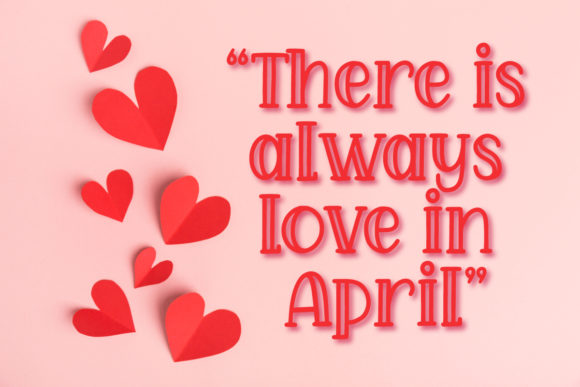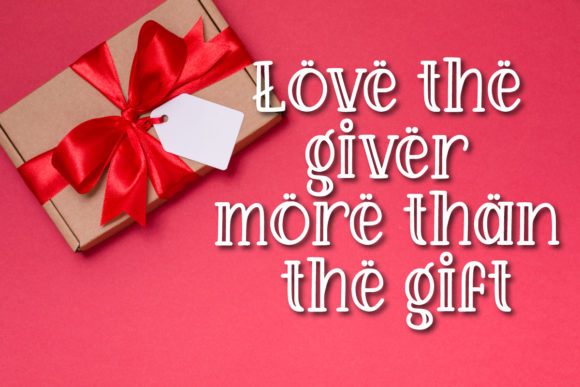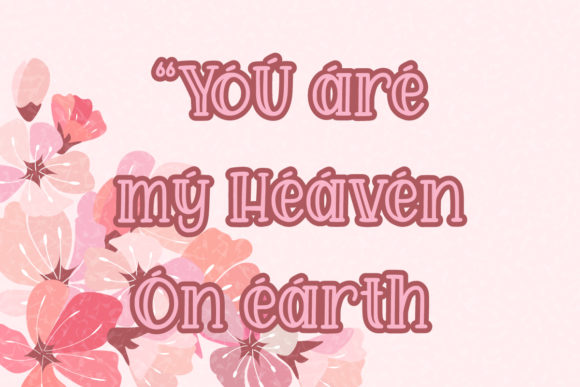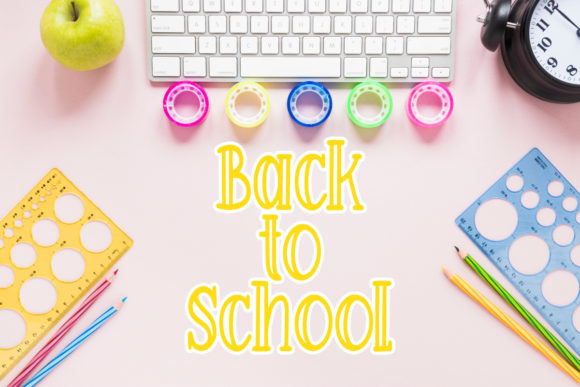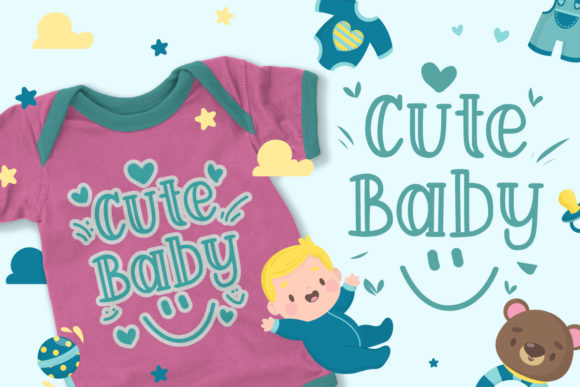
Introducing April Love Font: The Sweet and Cute Display Font for Your Creative Projects
Are you a designer, crafter, or DIY enthusiast looking for a font that can add a touch of whimsy and friendliness to your projects? Look no further than the April Love Font! This sweet and cute display font is perfect for a variety of creative applications, from logos and packaging to branding, greeting cards, and crafting projects.
What Makes April Love Font So Special?
The April Love Font features a unique and charming design that is sure to capture the hearts of your audience. Its whimsical and friendly feel makes it an ideal choice for projects that require a personal touch. Whether you’re creating a logo for a new business, designing a greeting card for a special occasion, or crafting a handmade project, this font is sure to add a touch of warmth and personality to your work.
Key Features of April Love Font
- Sweet and Cute Design: The April Love Font features a sweet and cute design that is perfect for creating visually appealing projects.
- Whimsical and Friendly Feel: The font’s whimsical and friendly feel makes it an ideal choice for projects that require a personal touch.
- Versatile: The April Love Font is versatile and can be used for a variety of creative applications, including logos, packaging, branding, greeting cards, and crafting projects.
The April Love Font is perfect for designers and crafters who are looking for a unique and charming font to add to their projects. Whether you’re creating a professional logo or a handmade crafting project, this font is sure to add a touch of personality and whimsy to your work.
Ideas for Using April Love Font
Here are some ideas for using the April Love Font in your creative projects:
- Logos and Branding: Use the April Love Font to create a unique and memorable logo for your business or brand.
- Greeting Cards: Add a personal touch to your greeting cards with the April Love Font.
- Crafting Projects: Use the font to create handmade crafting projects, such as scrapbook pages, journal entries, and DIY decorations.
- Packaging: Add a touch of whimsy to your product packaging with the April Love Font.
Tips for Getting the Most Out of April Love Font
Here are some tips for getting the most out of the April Love Font:
- Experiment with Different Sizes: Experiment with different font sizes to find the perfect size for your project.
- Pair with Other Fonts: Pair the April Love Font with other fonts to create a unique and visually appealing design.
- Use in Combination with Images: Use the font in combination with images to create a visually appealing design.
The April Love Font is a sweet and cute display font that is perfect for designers, crafters, and DIY enthusiasts. Its whimsical and friendly feel makes it an ideal choice for a variety of creative applications, from logos and packaging to branding, greeting cards, and crafting projects. With its easy-to-use design and versatile features, the April Love Font is sure to become a favorite in your creative toolkit.